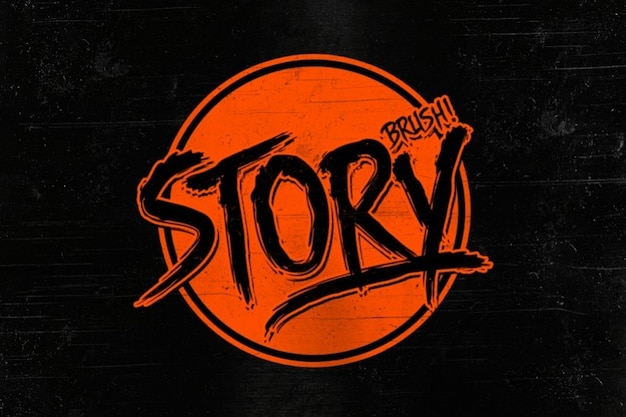
Story Brush
Story Brush Font
Story Brush is the rebellious artist of the font world, a master of the graffiti-laden streets. Its strokes carry the raw energy of urban expression, emulating the spontaneous chaos of street art. With each character, Story Brush screams creativity, mirroring the edgy and bold spirit of the streets. This font transforms any project into a canvas of self-expression, making it perfect for those who crave the untamed, vibrant vibe of the city. Let your words tell a story as vibrant and dynamic as the streets themselves with the unapologetic charisma of Story Brush!